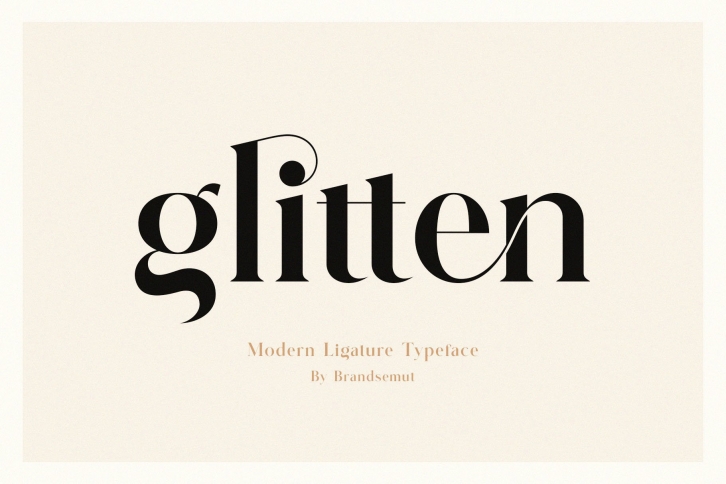
Glitten is a gorgeous font that was realeased on August 25, 2020. The font can be used in many style contexts and design environments. Perfect for invitations, magazines, websites, logos, and more! It was designed by BrandSemut and the file size is 9.86 MB. Thanks for checking out this font!